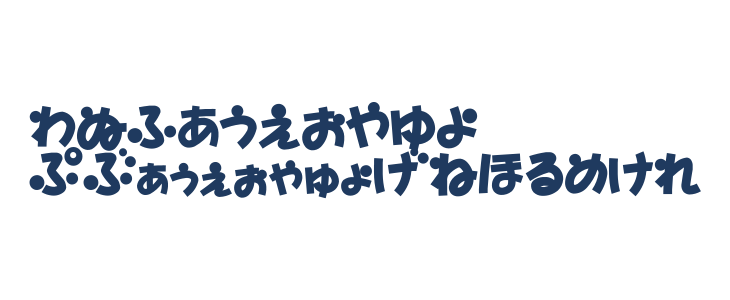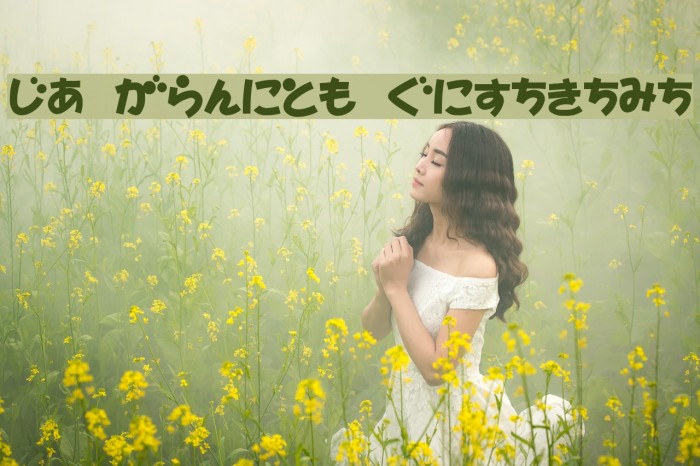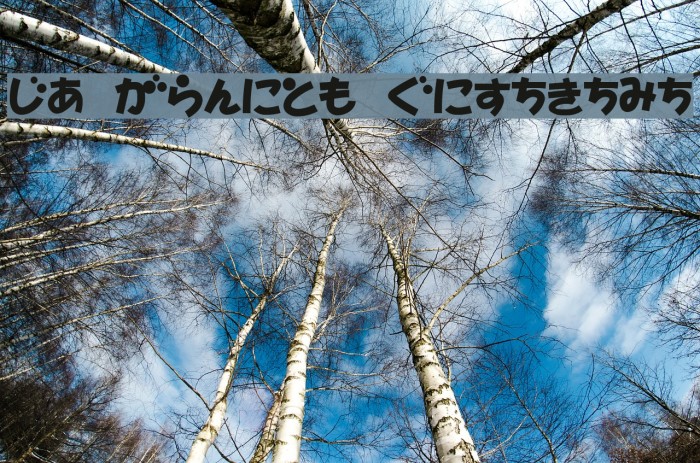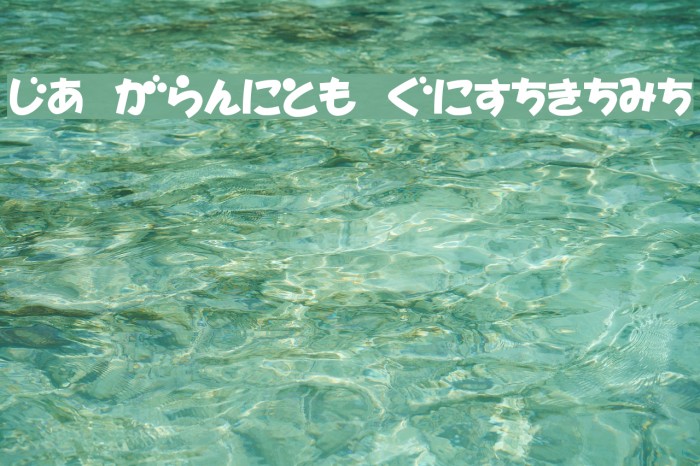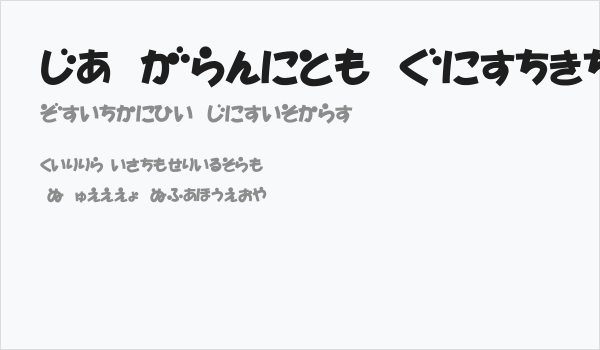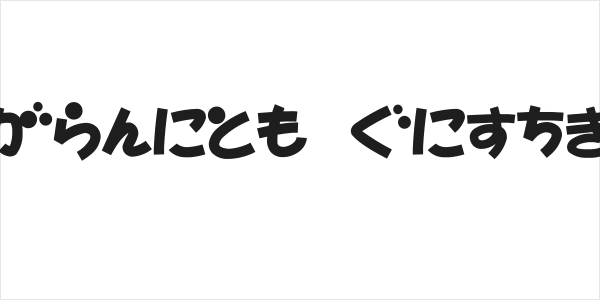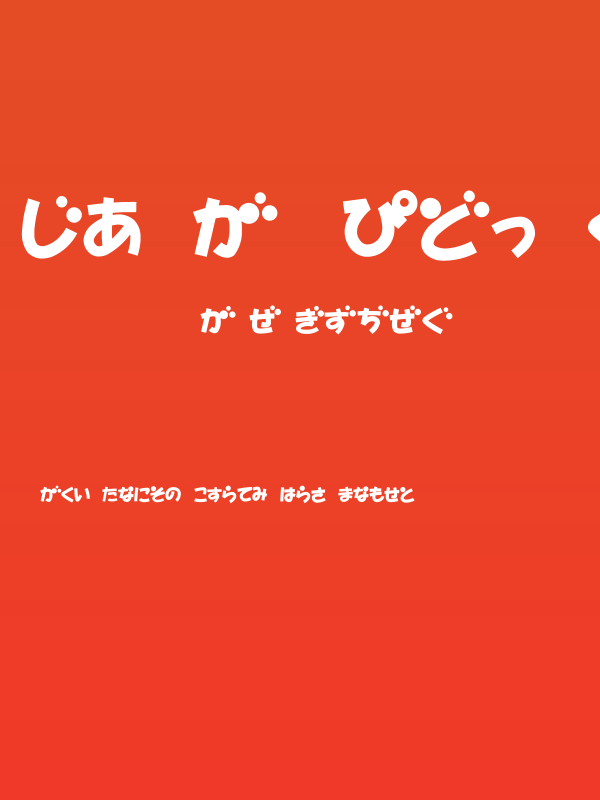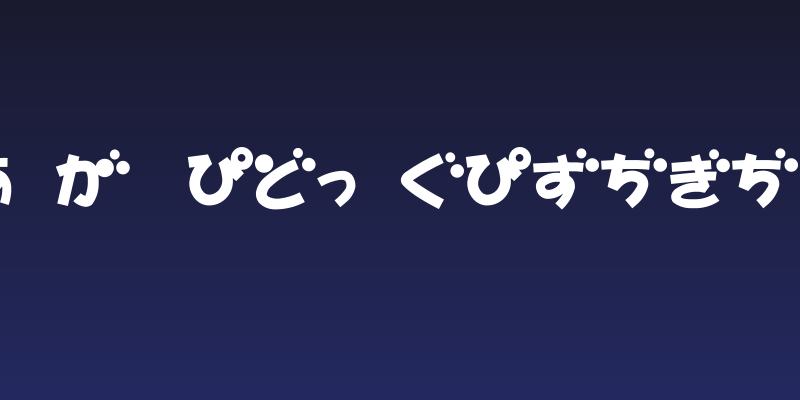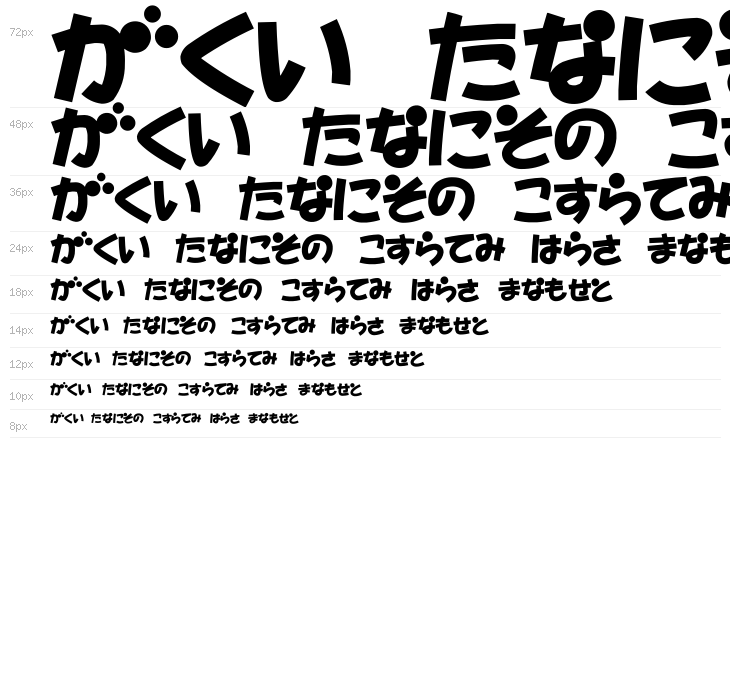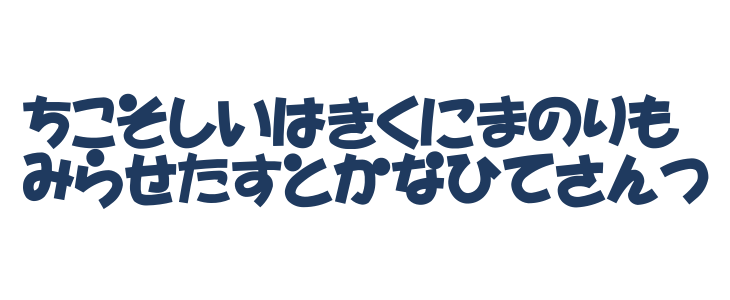
D3 Toyism Hiragana Font
D3 Toyism Hiragana Description
This font features a playful and bold style, characterized by its rounded and thick strokes. The characters are designed with a sense of whimsy, making them appear friendly and approachable. The font maintains a consistent weight throughout, providing a uniform appearance. The rounded edges and smooth curves contribute to its overall playful aesthetic. This style is particularly suitable for designs that aim to convey a sense of fun and creativity. The spacing between characters is balanced, ensuring readability while maintaining its distinctive style.
| Proposed Projects | Ideal for children's books, playful branding, creative posters, and educational materials. |